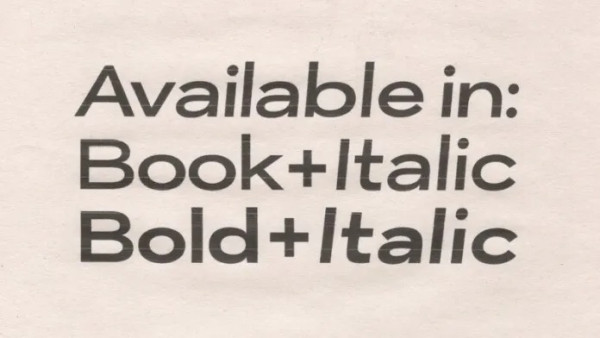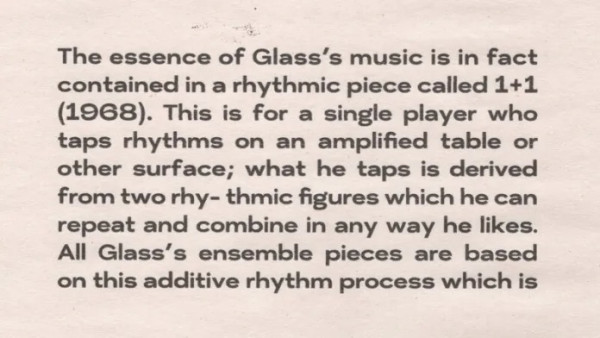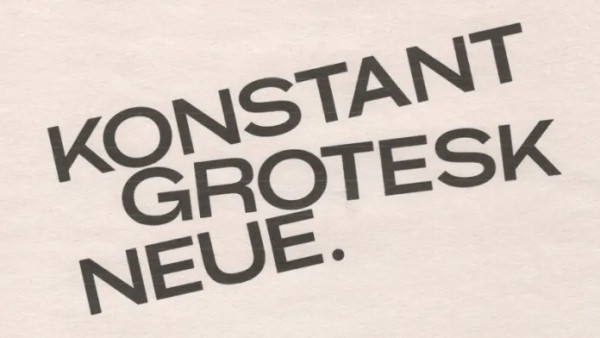
Konstant Grotesk Neue Font
Konstant Grotesk Neue Font is a sans serif font created by Stephen French with multiple stylistic sets and variable weights. It is a versatile mix of Geometric and Neo-grotesk design which offers the power of a display face at large sizes and ease of legibility in smaller, long-form text; giving it flexibility for a broad range of uses. It includes accents & multilingual characters.